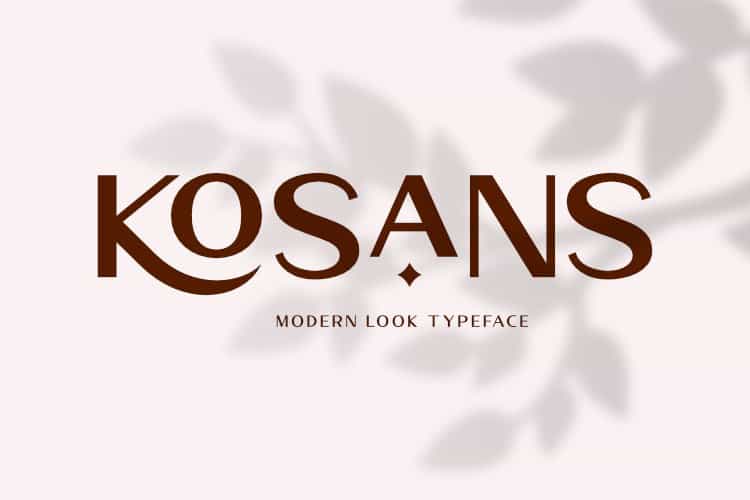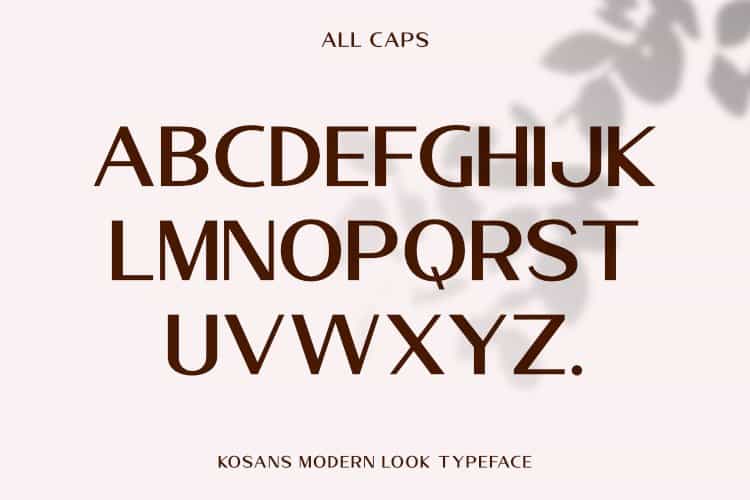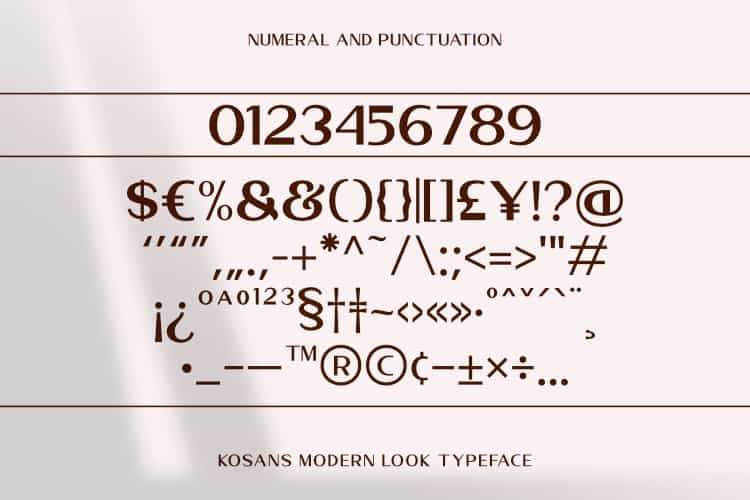
Kosans is a stylish sans serif font designed with modernity in mind, boasting versatility and clean designs to add vibrancy to any of your creations. Experience its endless possibilities while exploring this fun font!